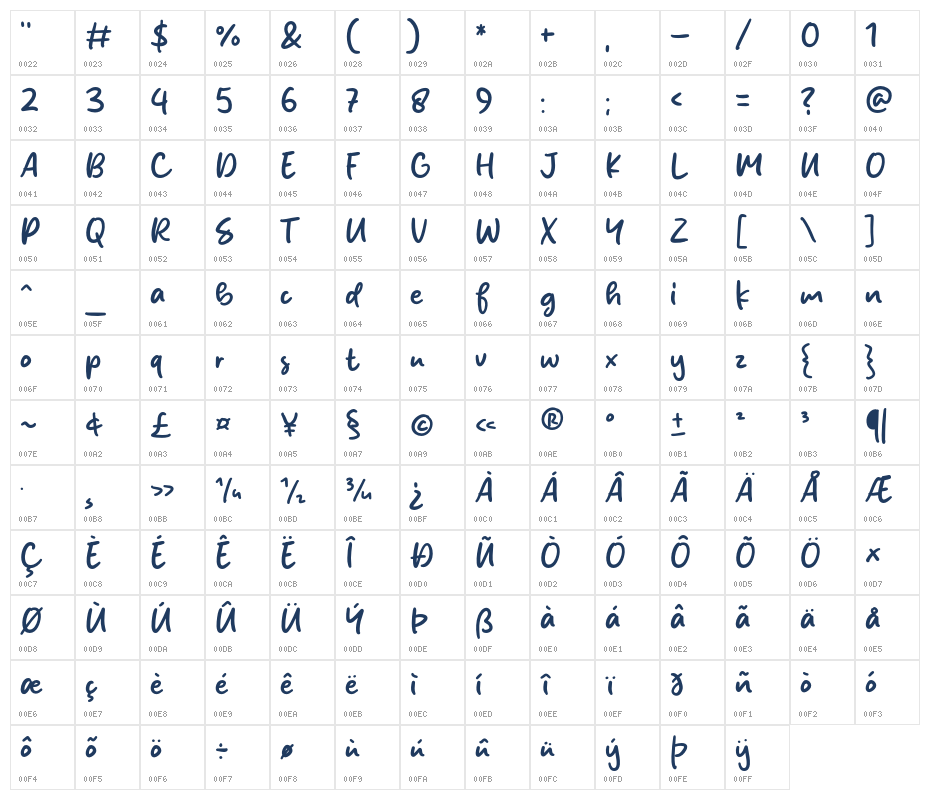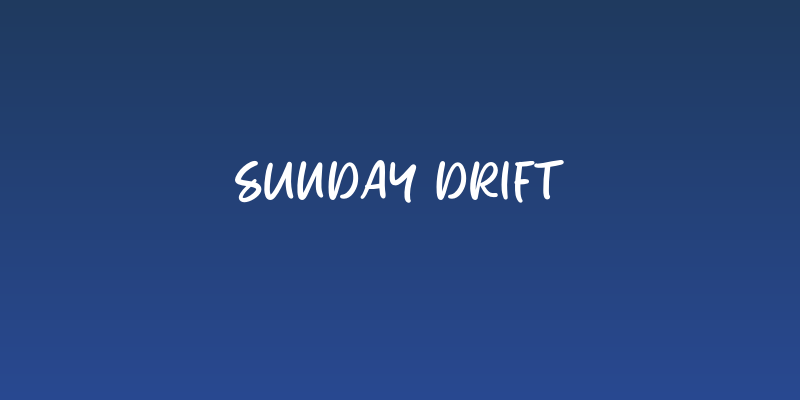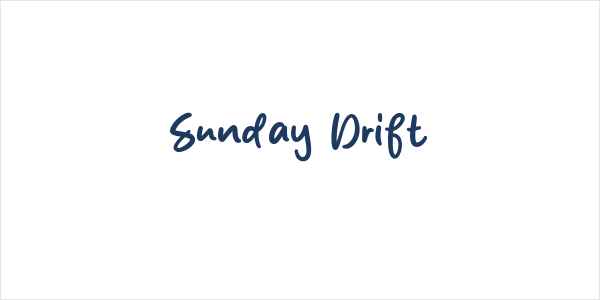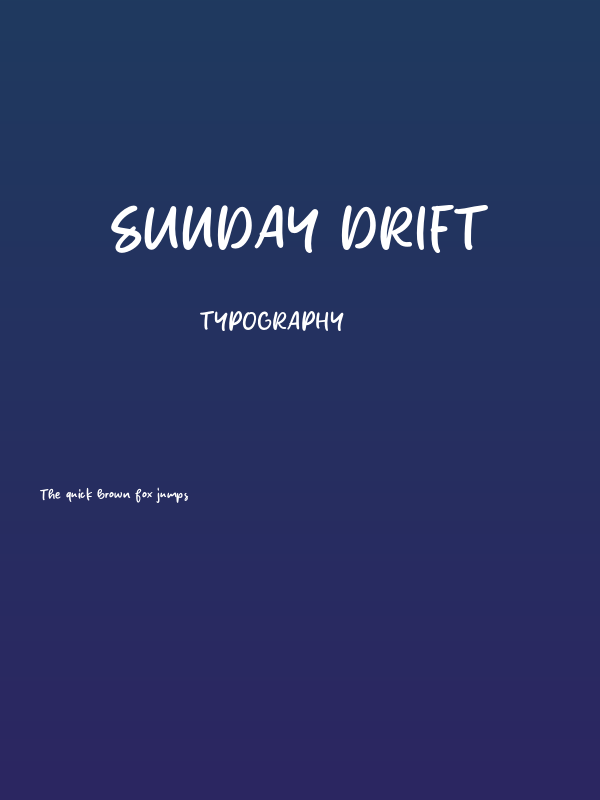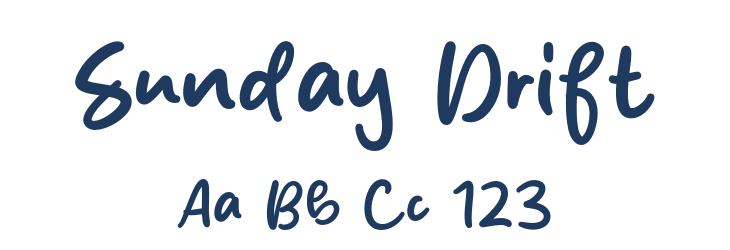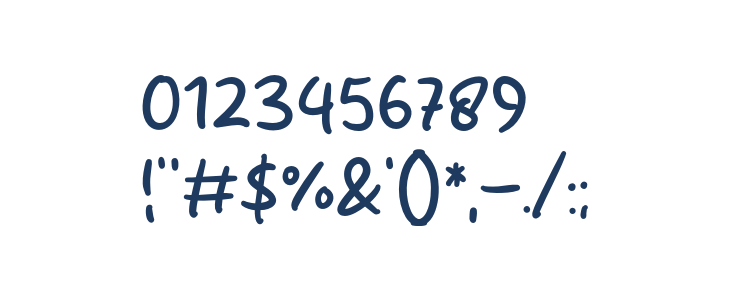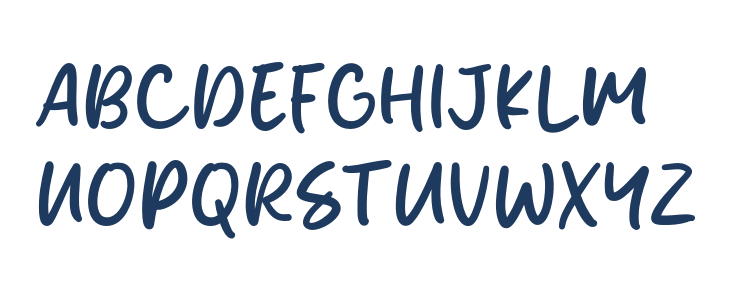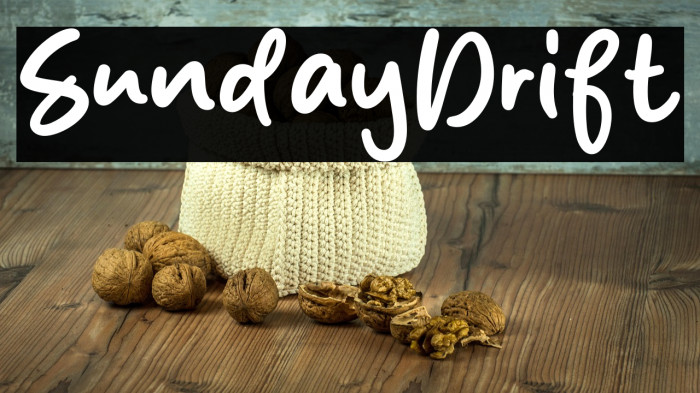
Sunday Drift Font
Sunday Drift Description
A casual, handwritten script font with a playful and friendly appearance, featuring smooth curves and a slightly informal style.
| Overall Style | Casual, Friendly, Handwritten |
| Use Case | Headlines, Personal projects, Logos, Social media |